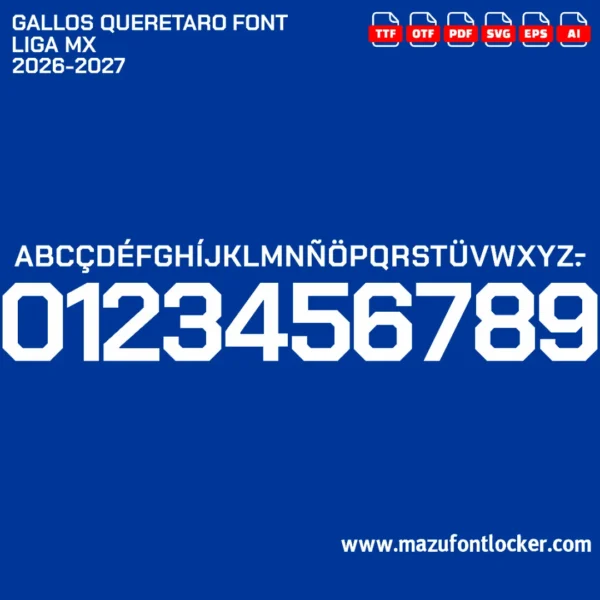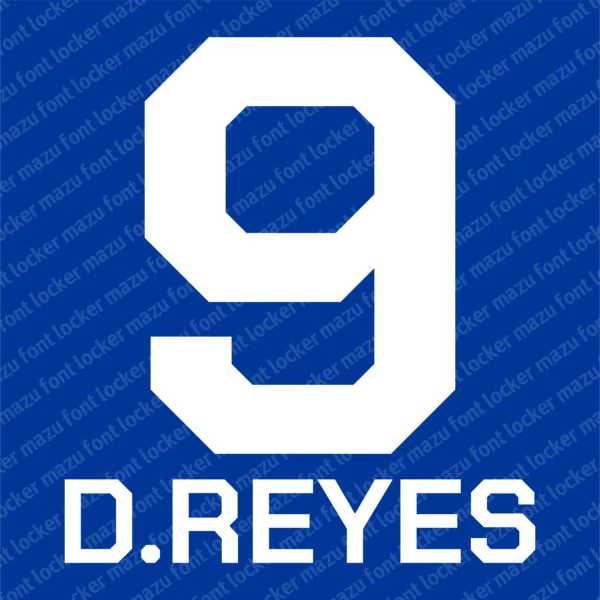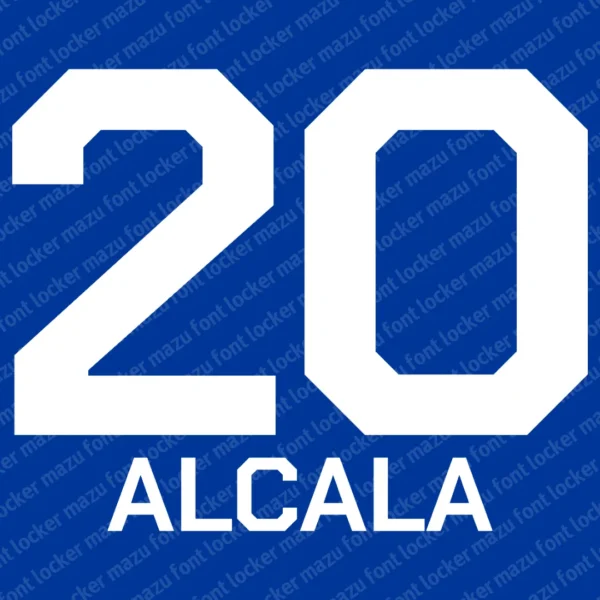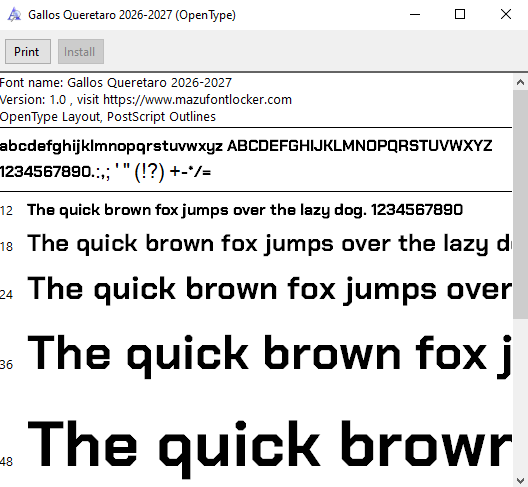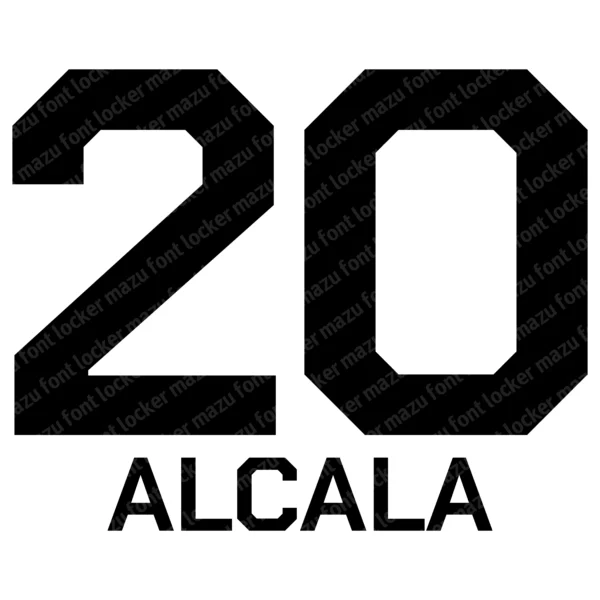
Gallos Querétaro 2026-2027 Font Vector – Epic Gallos Blancos Masterpiece
This font captures the commanding, razor-sharp, thunderous, and precision-engineered lettering that perfectly embodies Gallos Queretaro’s iconic club identity, proud Mexican heritage, never-say-die mentality, and raw football power — delivering unmatched authenticity, premium quality, explosive energy, and elite Liga MX & international dominance for professional jersey mockups, dynamic football graphics, premium sports branding, passionate fan creations, and high-end design projects.
Gallos Querétaro 2026-2027 Font Vector – Iconic Blue & White Typeface
The Gallos Querétaro 2026-2027 Font Vector is a premium typeface that accurately recreates the official match lettering worn by Gallos Querétaro during the 2026-2027 season. This high-quality vector font kit captures the bold, clean, and instantly recognizable typography that perfectly complements the club’s iconic blue and white identity.
Designed for professional designers, football enthusiasts, and passionate Gallos Querétaro supporters, the Gallos Querétaro 2026-2027 Font Vector delivers exceptional authenticity for creating realistic jersey mockups, football merchandise, social media graphics, match posters, and custom fan artwork. Every character has been carefully recreated to match the powerful and precise visual style of one of Mexico’s passionate football clubs.
Why Choose Gallos Querétaro 2026-2027 Font Vector
This font stands out thanks to its precise vector construction and authentic club styling. Every letter and numeral has been meticulously recreated to match the official shirt lettering used throughout the 2026-2027 Liga MX and cup campaigns. Whether you’re producing professional kit templates or creating eye-catching football content, the Gallos Querétaro 2026-2027 Font Vector delivers a genuine match-ready appearance.
The lettering featured in the Gallos Querétaro 2026-2027 Font Vector combines clean geometric lines with powerful modern proportions. The result is a premium and highly readable typeface that reflects Gallos Querétaro’s fighting spirit, precision, and passionate fanbase in Mexican football.
- Complete uppercase A–Z alphabet and numbers 0–9 in authentic Gallos Querétaro 2026-2027 style
The Gallos Querétaro 2026-2027 Font Vector is an independently designed typeface package inspired by the official shirt lettering for the 2026-2027 season. It has been carefully recreated for football enthusiasts, graphic designers, collectors, and creators producing custom jersey concepts, football artwork, and fan-made projects.